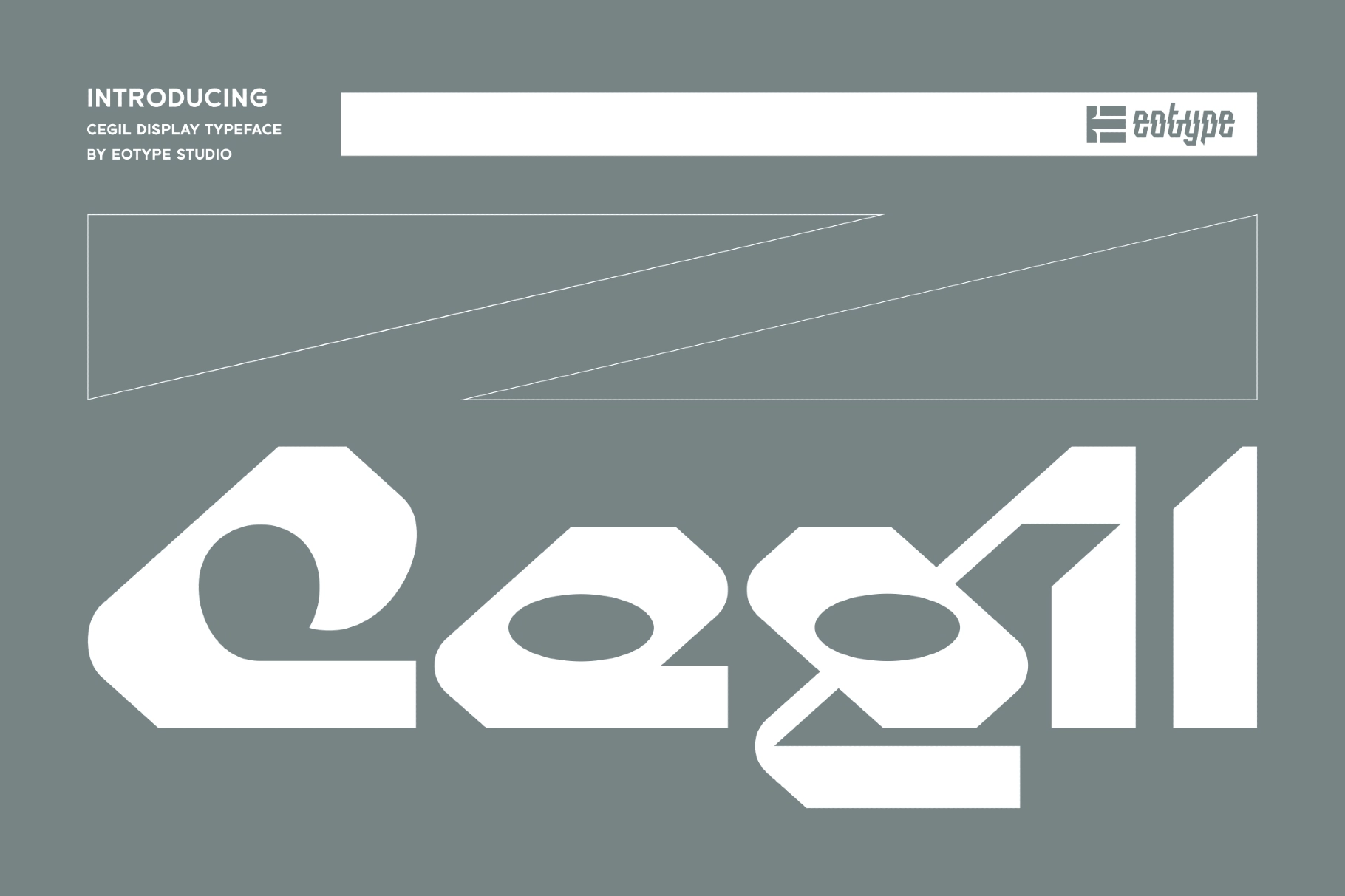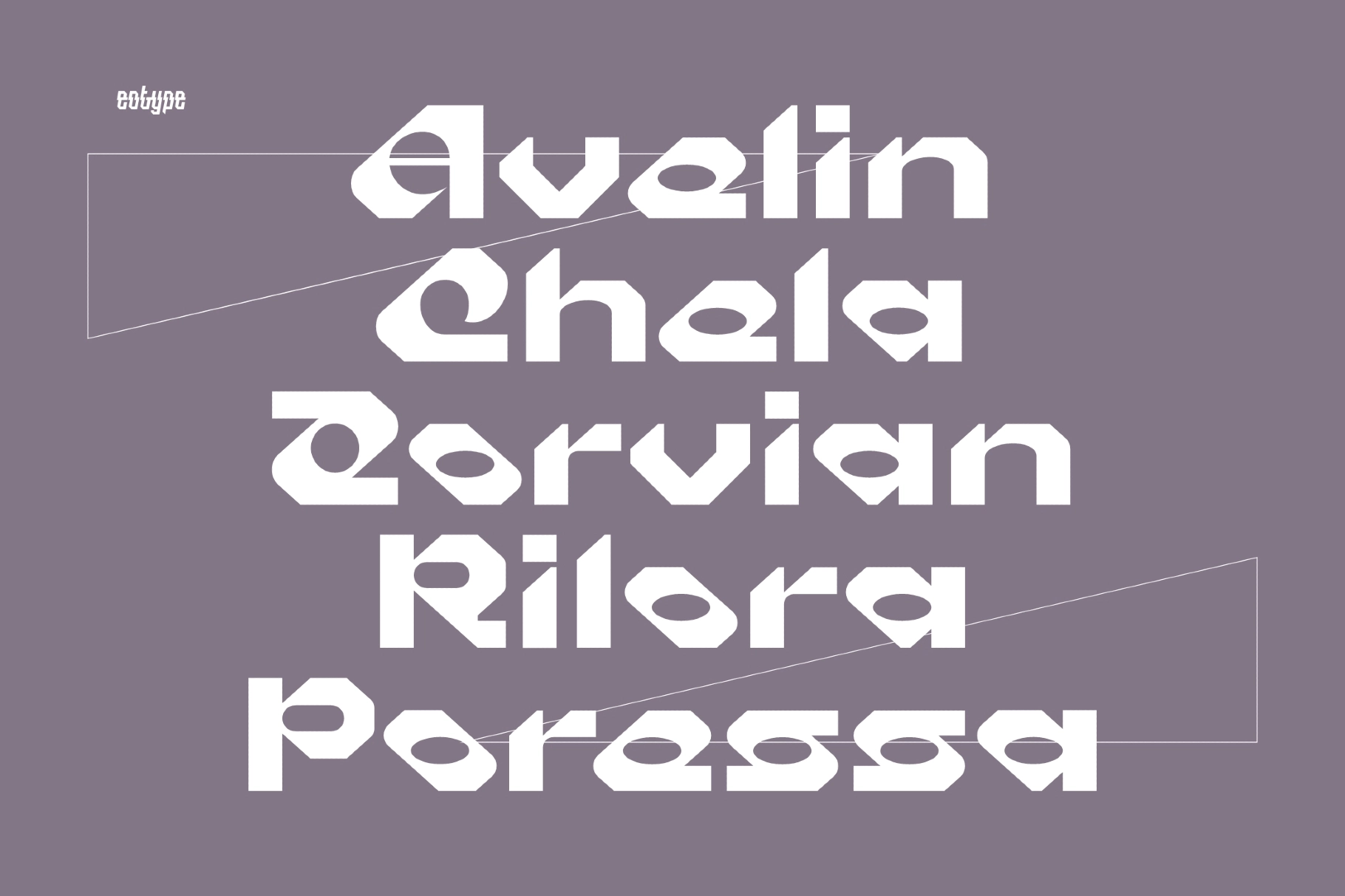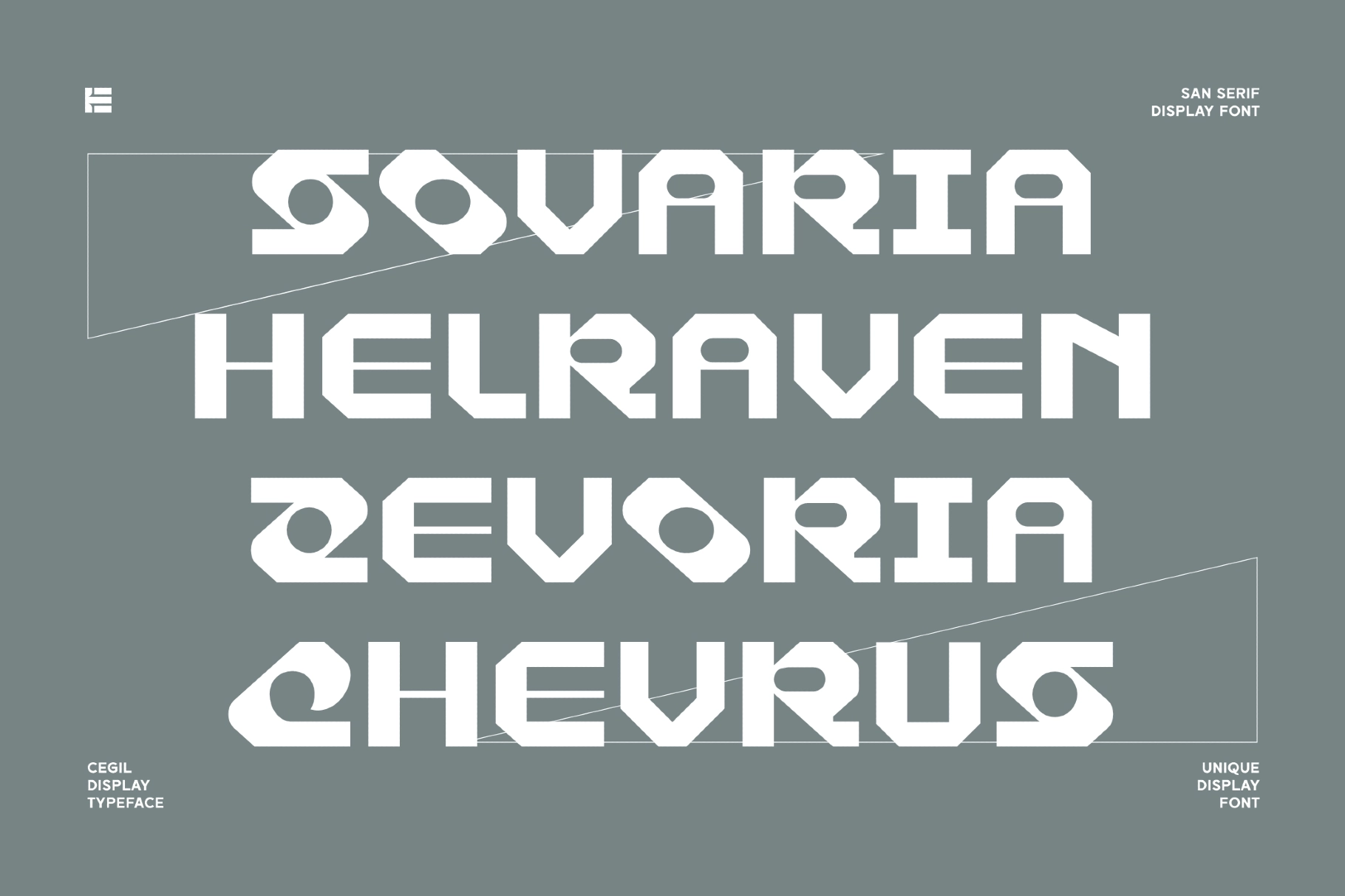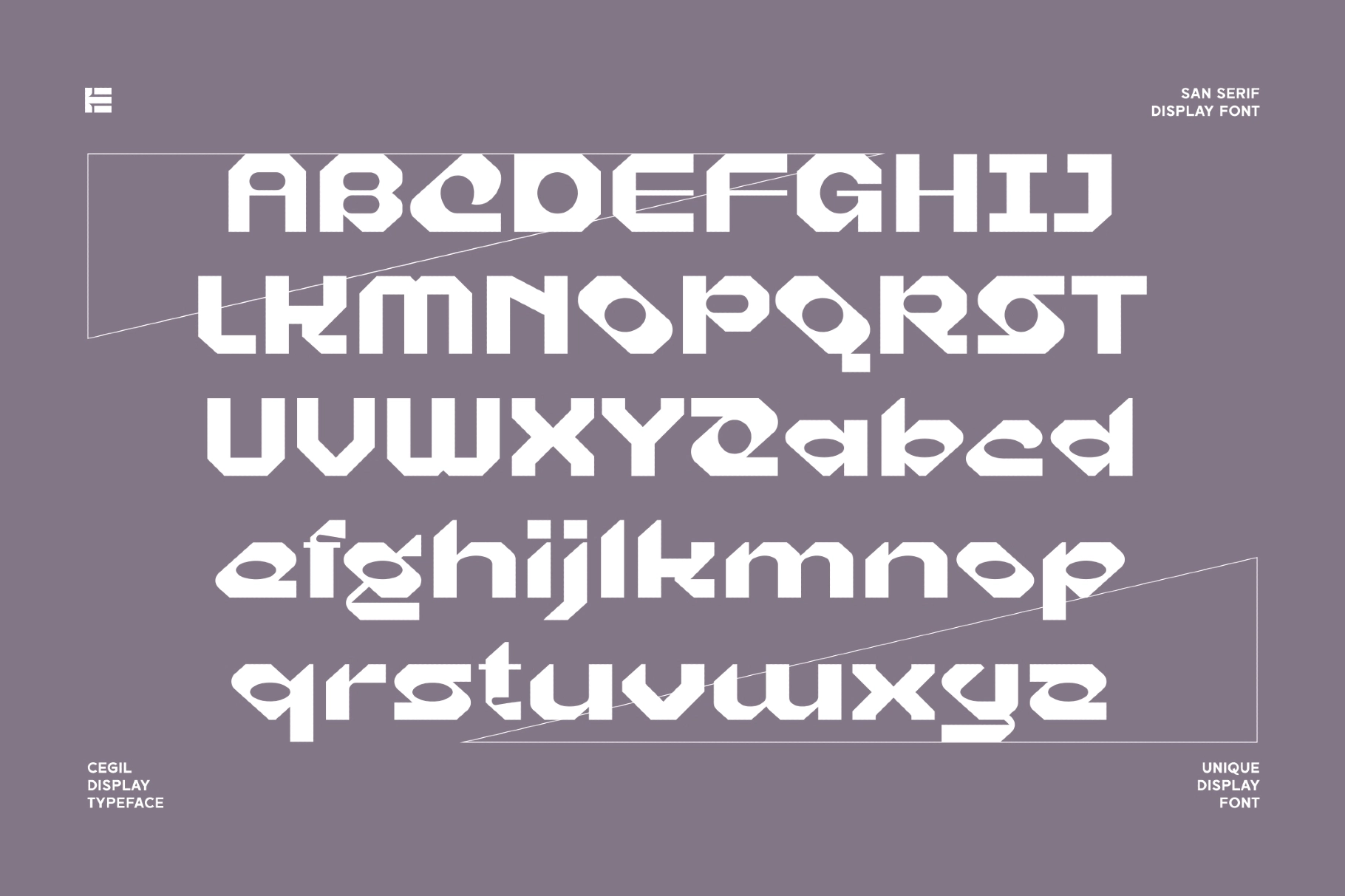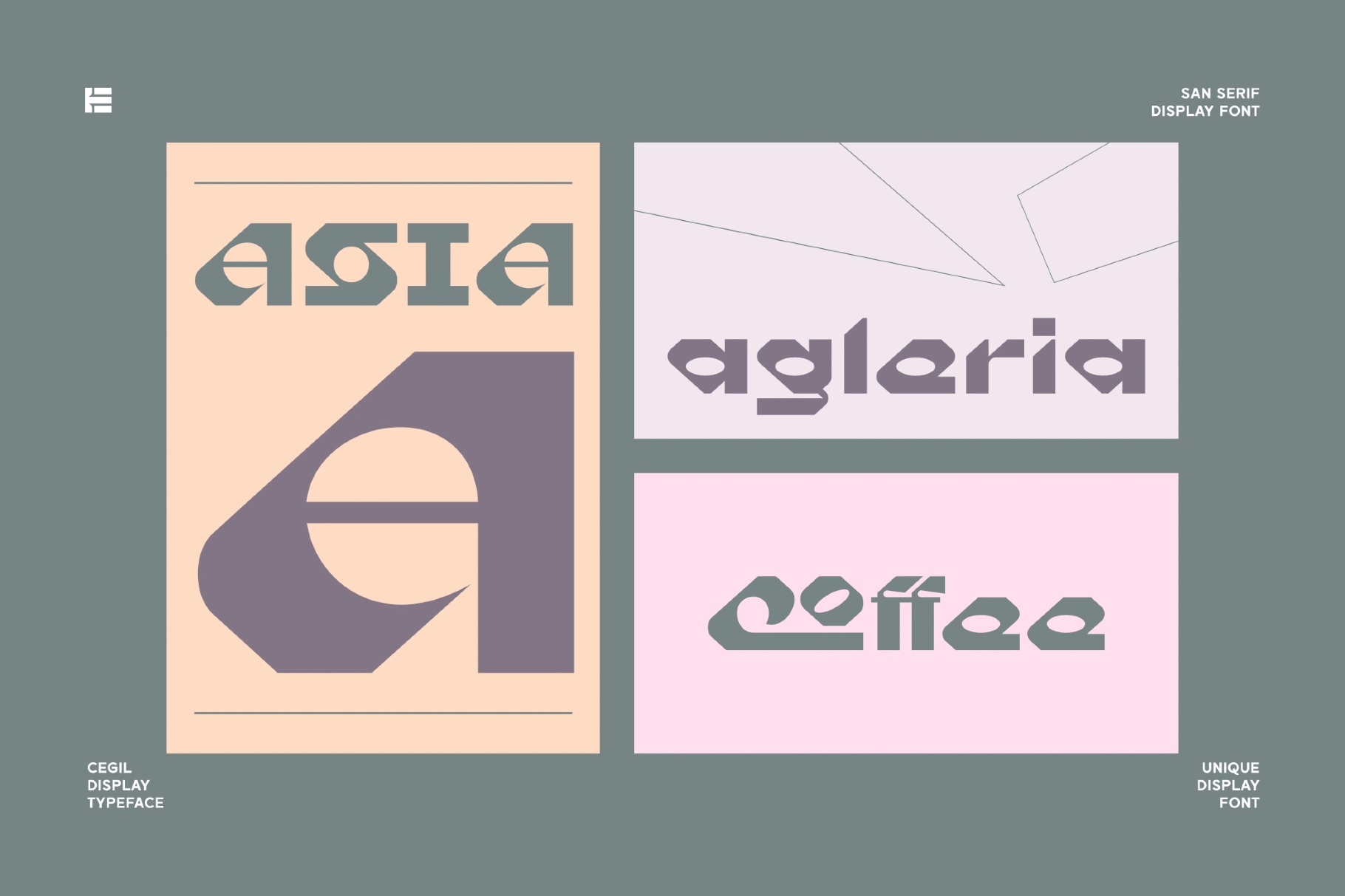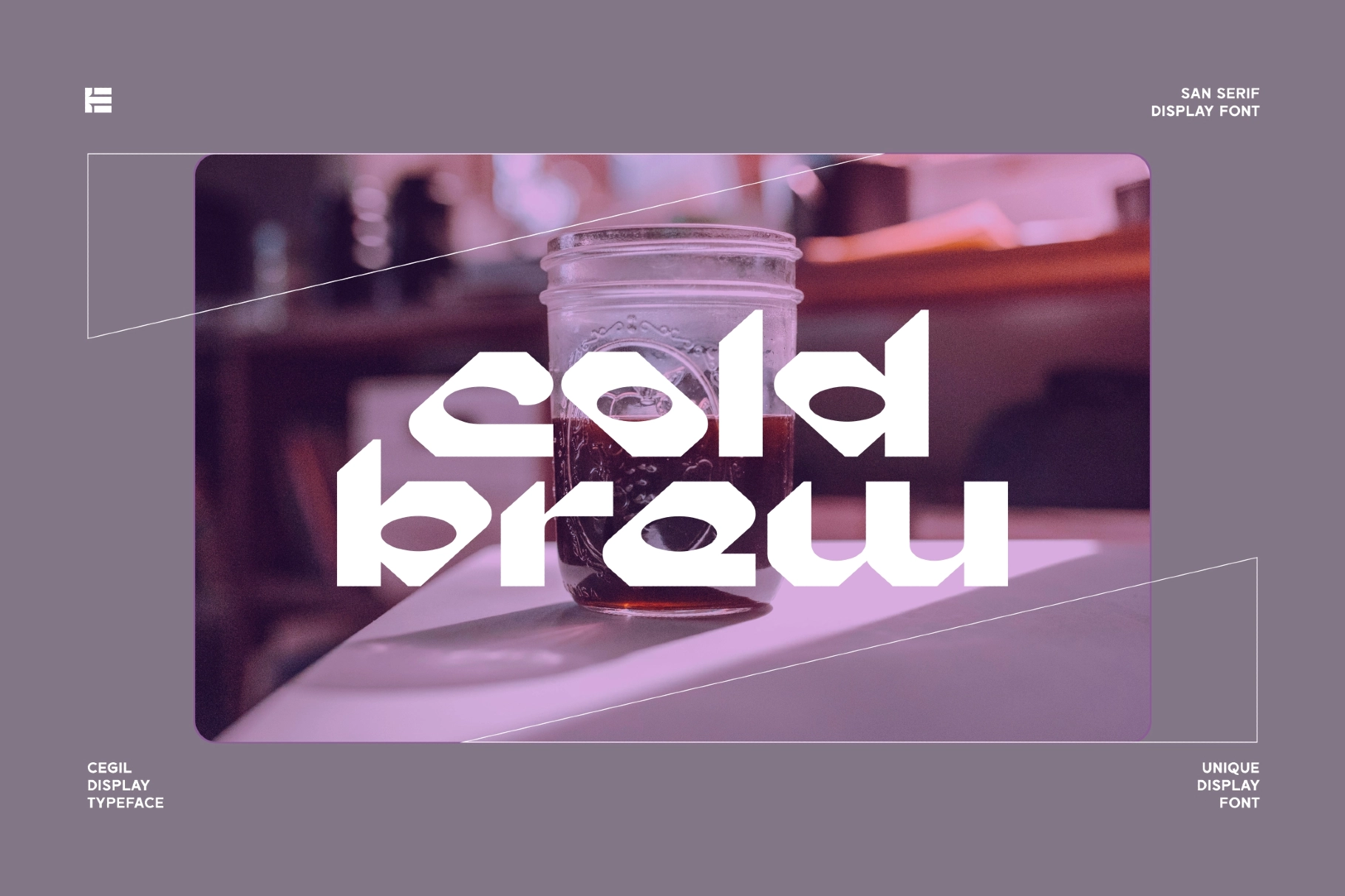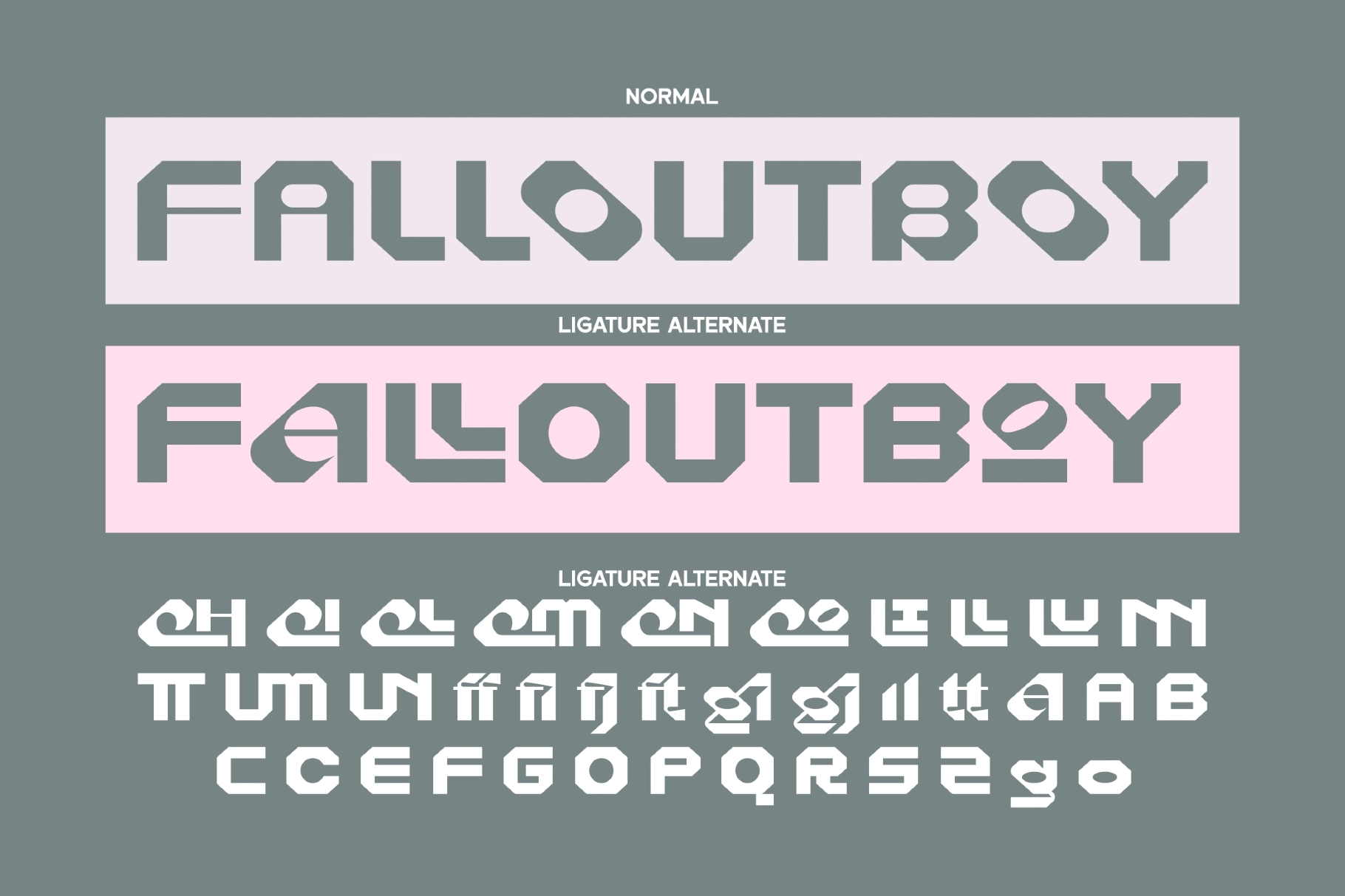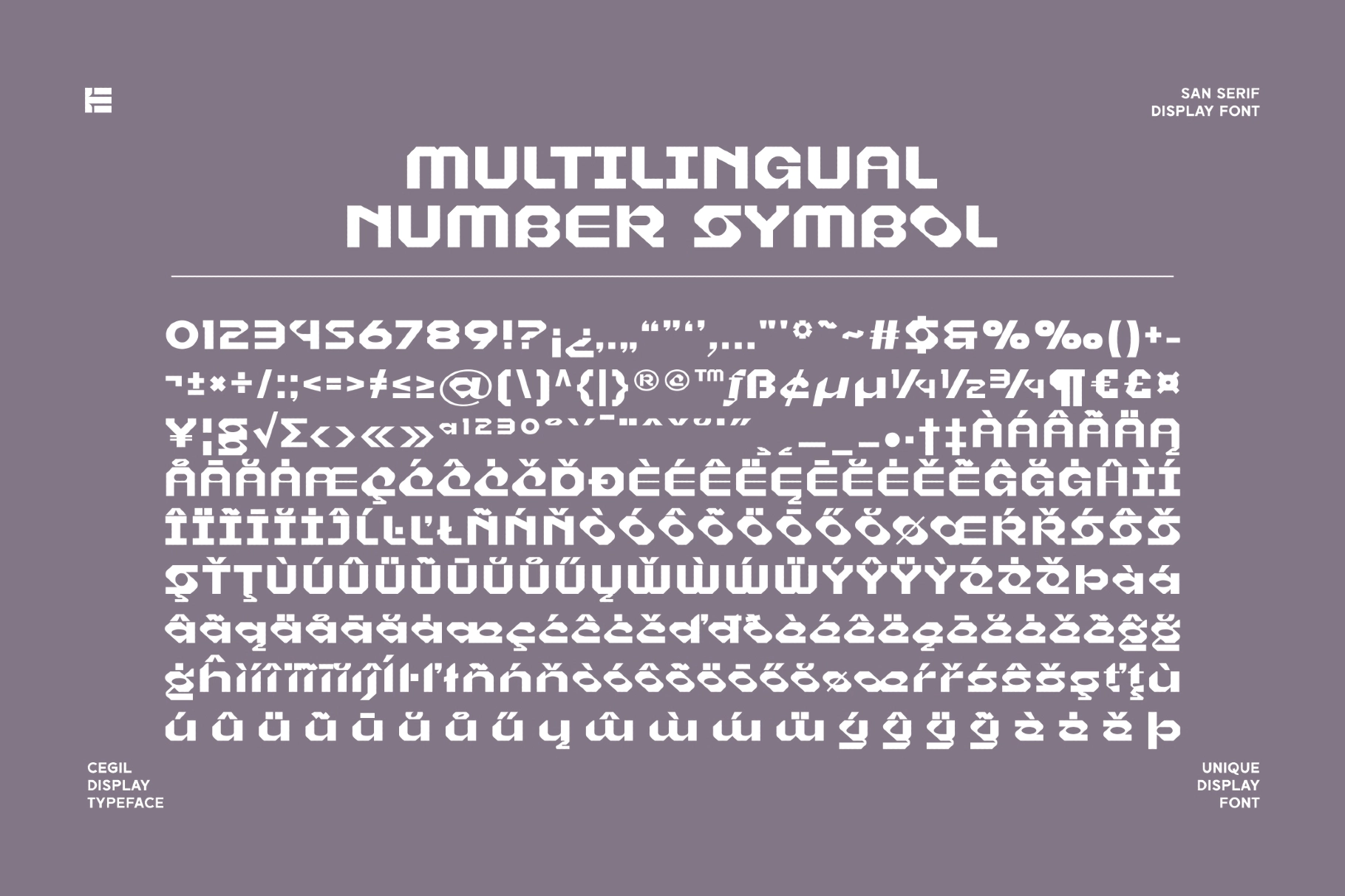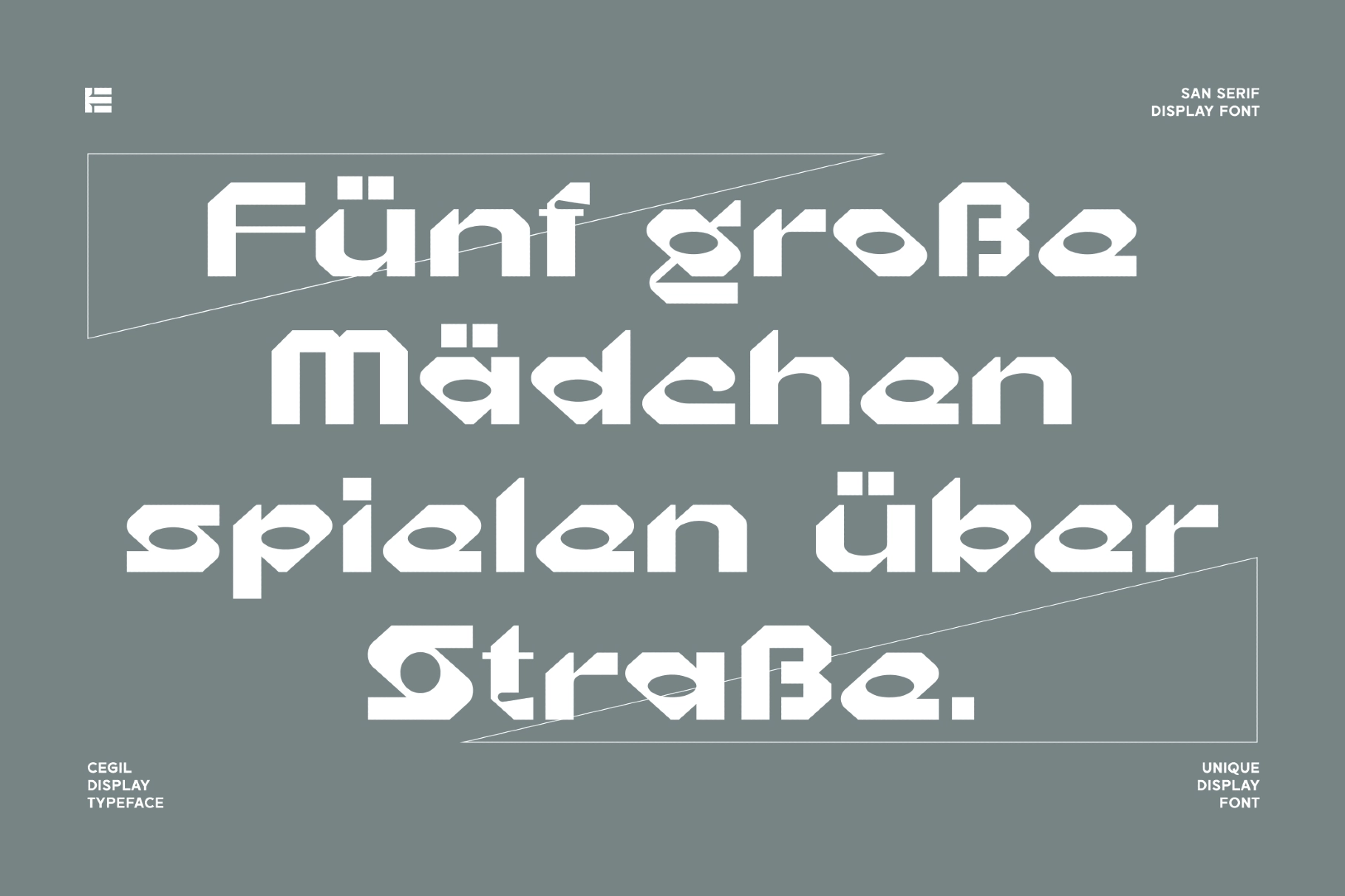
Cegil - Geometric Display Typeface
Cegil
The font is a geometric display pick with heavy letterforms, angled cuts, rounded counters, and a sci-fi graphic attitude. Its sturdy construction gives headlines a loud, architectural look, while the alternate characters and ligatures add enough weird little decisions to keep things from looking corporate.
Use it for music posters, game titles, tech branding, streetwear graphics, festival identities, album covers, logo marks, YouTube thumbnails, packaging, stickers, event promos, editorial headlines, and more. The uppercase shapes are especially strong for compact compositions, where every letter needs to work like a visual object instead of polite text.
- Stylistic Alternates & Ligatures